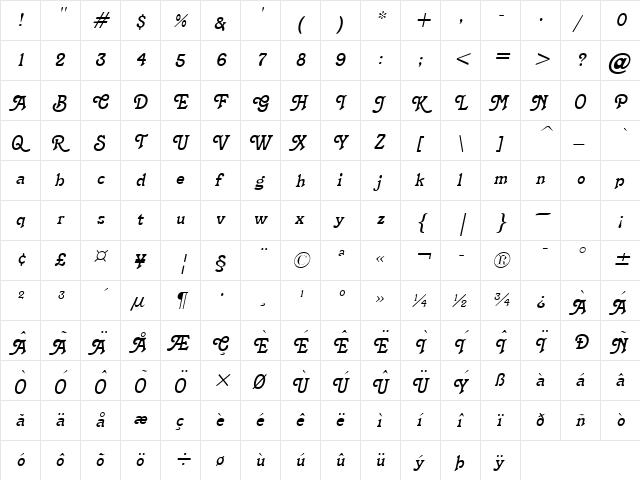
Terra Narrow Italic
Design Context for Terra Narrow Typeface
Terra Narrow offers clean, dependable letterforms without strong stylistic allegiance, making it a practical choice for designers who need flexibility. The slanted form adds forward momentum and visual energy. Its narrow stance lets it pack a punch even in space-constrained designs.
Pro Tip: Use Terra Narrow for emphasis, pull quotes, and subheadings where its slanted energy can add rhythm to the layout.